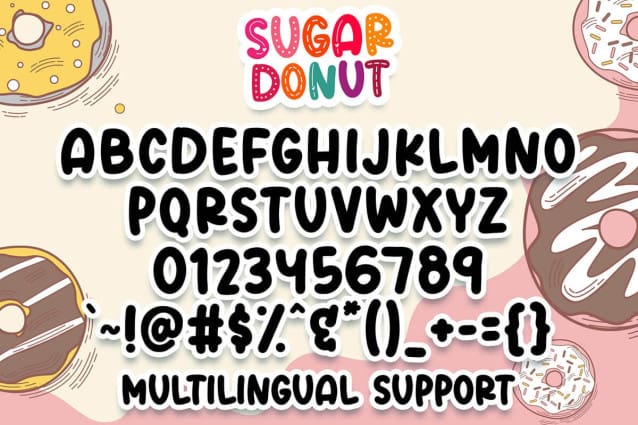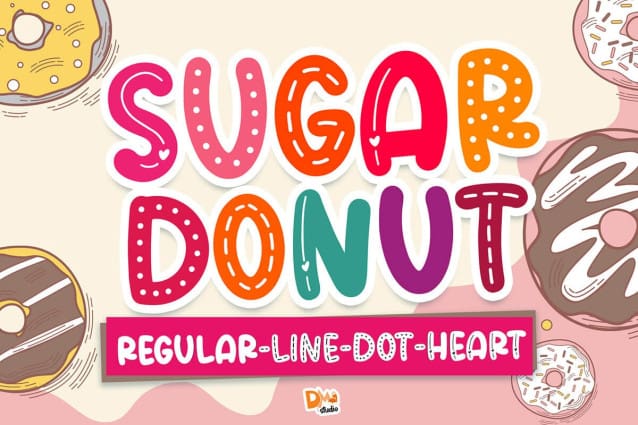
Sugar Donut Font
Sugar Donut Font is a delectable and whimsical typeface that adds a sweet and playful touch to your designs. Inspired by the delightful swirls of icing on a sugar-coated donut, this font brings a sense of fun and conveys a sugary charm to various creative projects. Perfect for menus, bakery signage, greeting cards, and any design where you want to infuse a deliciously unique style.
Features: Sweet and Playful Design: The Sugar Donut Font embodies a sweet and playful aesthetic, reminiscent of the swirls of frosting on a sugary treat. Its unique design adds a touch of whimsy and charm to your typography.
Irresistible Swirls: The font features captivating swirls and curves that mimic the enticing icing patterns on a donut. These elements contribute to the overall delightful and appetizing appearance of the font.
Versatile Application: This font is versatile and suitable for a range of design projects where you want to convey a sense of sweetness and playfulness. Whether it’s a bakery logo, a dessert menu, or party invitations, the Sugar Donut Font is sure to make your designs stand out.
Uppercase and Lowercase Letters: The font includes both uppercase and lowercase letters, providing flexibility and creative freedom in your designs. Use them in combination to create visually appealing and balanced typography.
Punctuation and Symbols: In addition to the alphabet, the font includes a comprehensive set of punctuation marks, numerals, and common symbols. This ensures consistency and ease of use when incorporating the font into your design projects.
Indulge your designs with the delightful and sugary aesthetic of the Sugar Donut Font. Let its playful swirls and unique charm add a touch of sweetness to your bakery branding, menus, and creative projects. Create designs that are as irresistible as a freshly baked sugar donut!